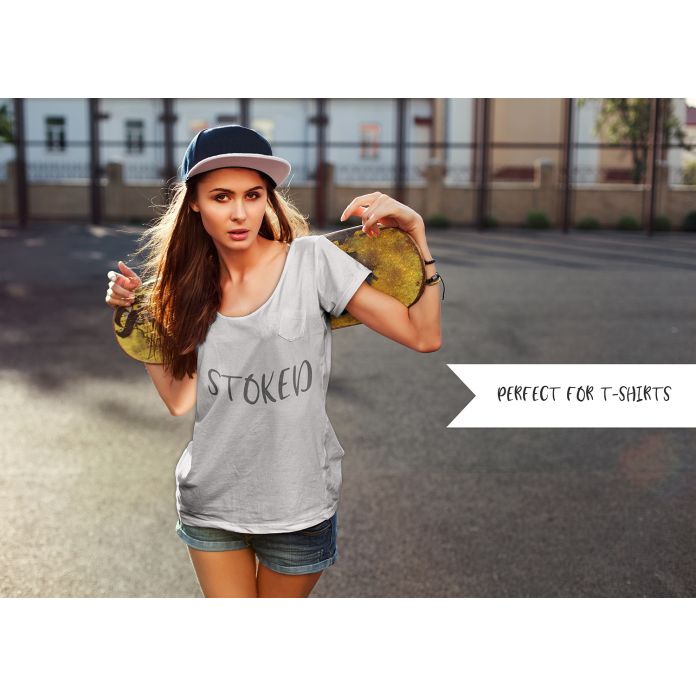
Da Beach Sans Font
Growing up on the beach back east, and moving to the beach on the west coast, one thing has never changed. That beachy vibe. Inspired by the casual, easy-going nature of life on the beach, Da Beach is a fun sans font hand-lettered on an iPad.